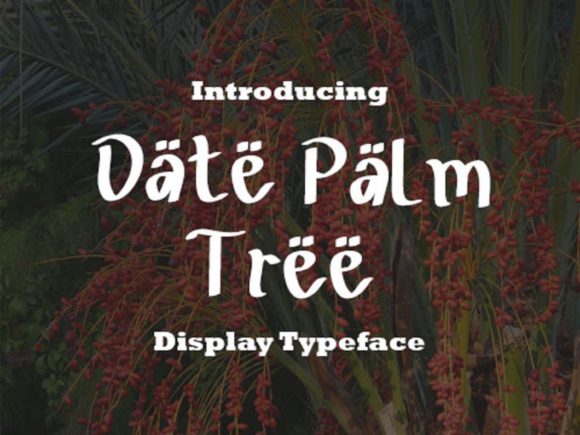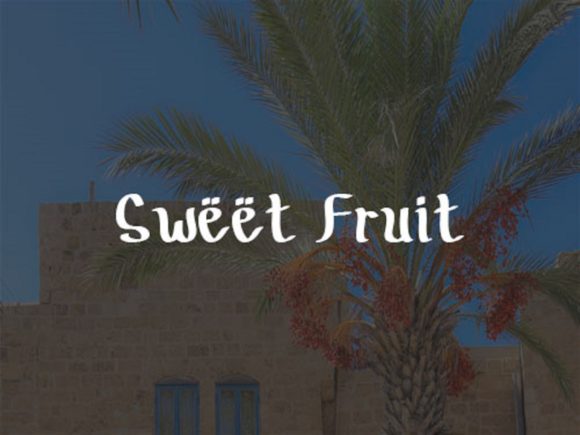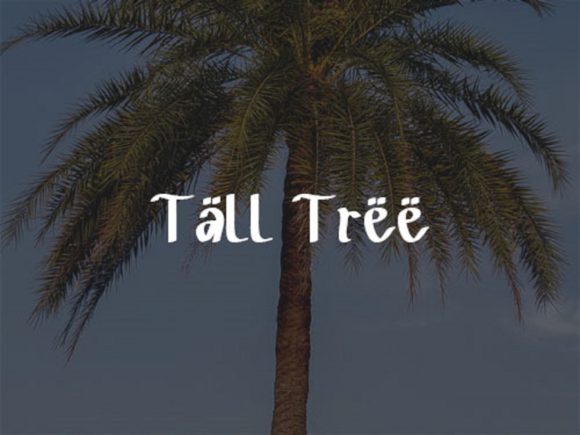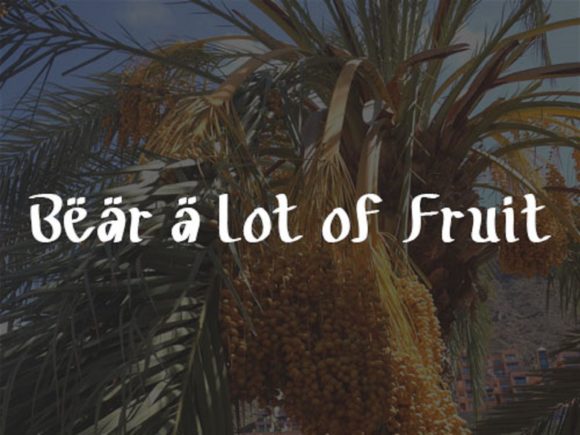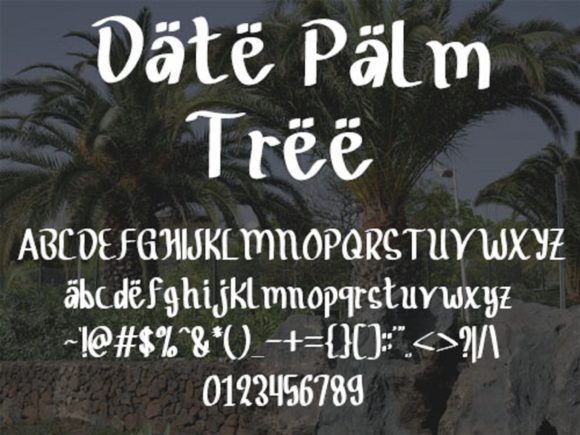
Date Palm Tree Font
About Date Palm Tree Font
Date Palm Tree is a whimsical script font with a relaxed theme, featuring a lovely style. No matter the topic, this font will be an incredible asset to your fonts’ library, as it has the potential to elevate any creation.